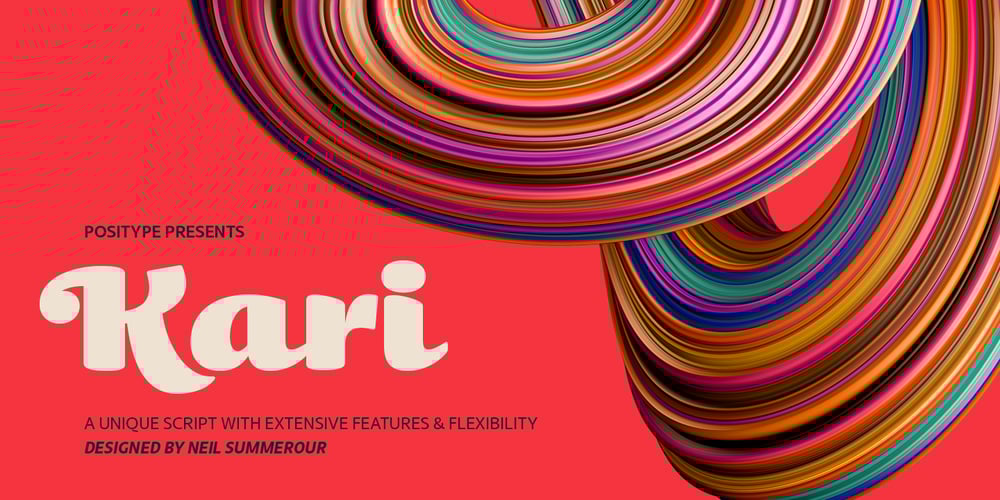
Kari Font Family was designed by Neil Summerour and published by Positype. Kari contains 6 styles and family package options. Kari is a complete redraw and expansion of the award-winning typeface originally released in 2005. Featuring both upright and ‘italic’ styles, this soft and curvy script is perfect for packaging, expressive headlines, and fun settings. Feature-rich and flexible, Kari is stocked full of alternate characters, swashes, titling options, expanded numeral sets, new dingbats, and a lot more… and for the first time, the much-requested ‘Medium’ weight is now available.